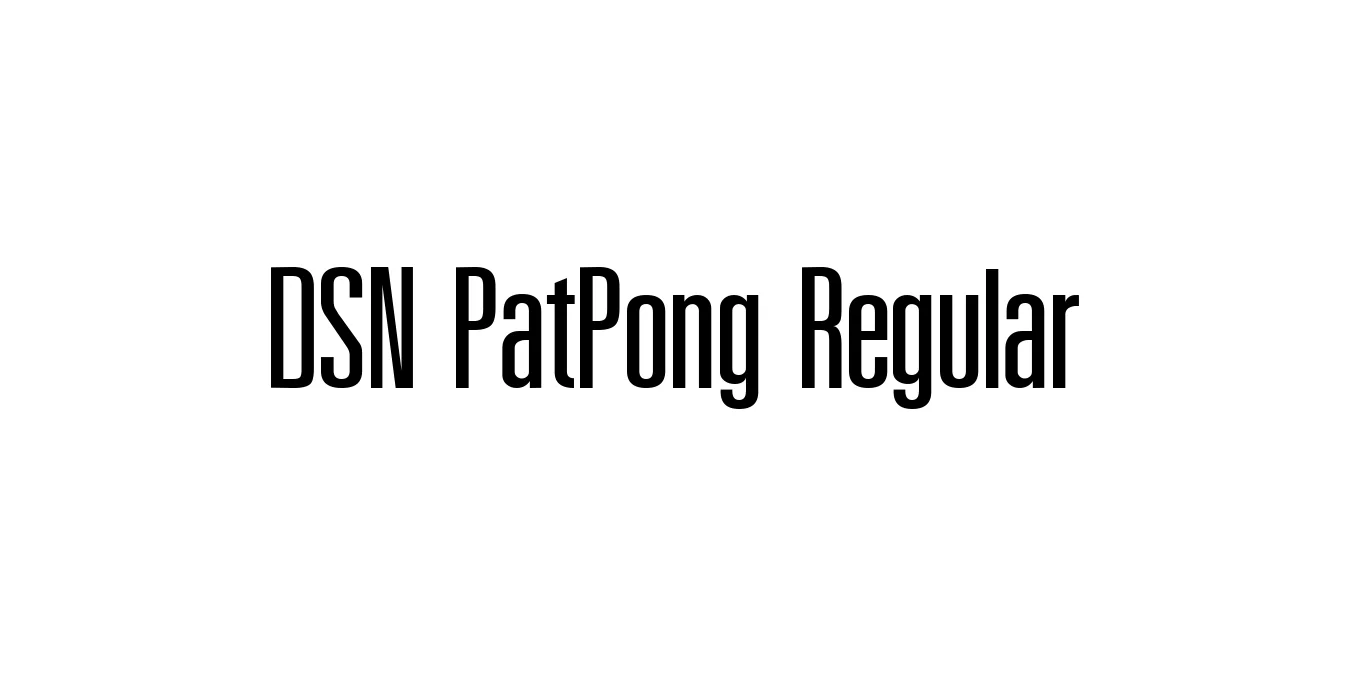
DSN PatPong Regular
Designed by Dusit Supasawat
DSN PatPong Regular is a prominent Thai display typeface that draws its stylistic inspiration from the energetic and iconic atmosphere of the Patpong district in Bangkok. Developed by the prolific designer Dusit Supasawat, this font family is widely recognized for its clean yet impactful sans-serif strokes, which are specifically engineered to maintain clarity and legibility. It has become a staple in the Thai design landscape for businesses looking to evoke a sense of urban vibrancy and modern cultural relevance.
Technically, the font features a balanced weight and distinctive curves that bridge the gap between traditional Thai script aesthetics and modern typographic standards. Because of its bold presence and geometric influence, DSN PatPong Regular is frequently utilized for large-scale outdoor signage, promotional banners, and commercial advertising across Thailand. It remains a popular choice for designers who require a font that communicates authority and local flair simultaneously while remaining highly readable at various distances.
DSN PatPong Regular Best Uses
Perfect for high-impact titles in posters and editorial layouts.
Ideal for shopfronts and large-scale outdoor advertisements.
Excellent for creating eye-catching graphics and thumbnails.
Useful for logos needing a modern Thai urban aesthetic.